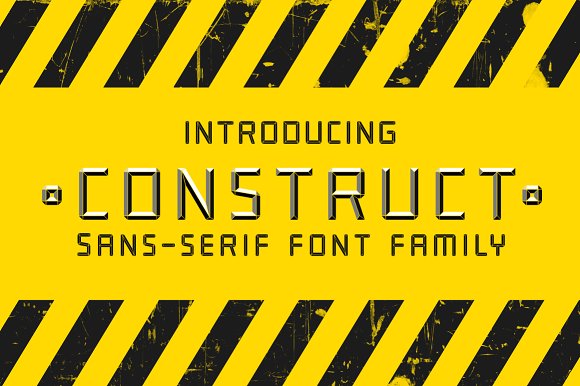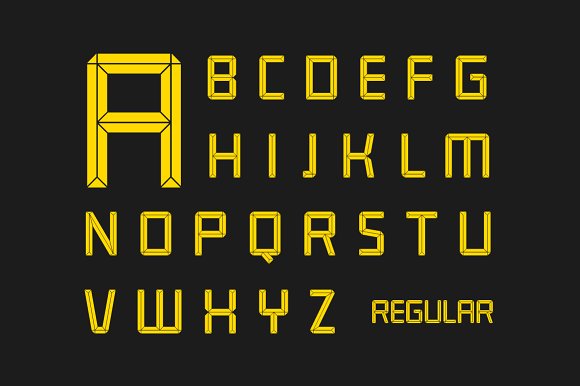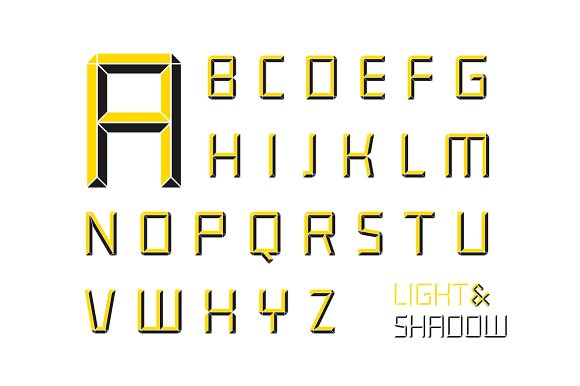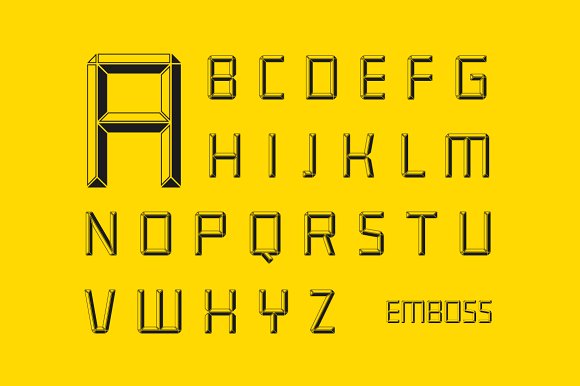
Construct family font
Introducing a new bold, sportive and industrial CONSTRUCT font family.
Perfect combination of 2 fonts (Light and Shadow) to create your own layered 3D headlines, eye-catching texts, logotypes, design, posters for sports, music, street culture, modern arts, industries and many more other themes.